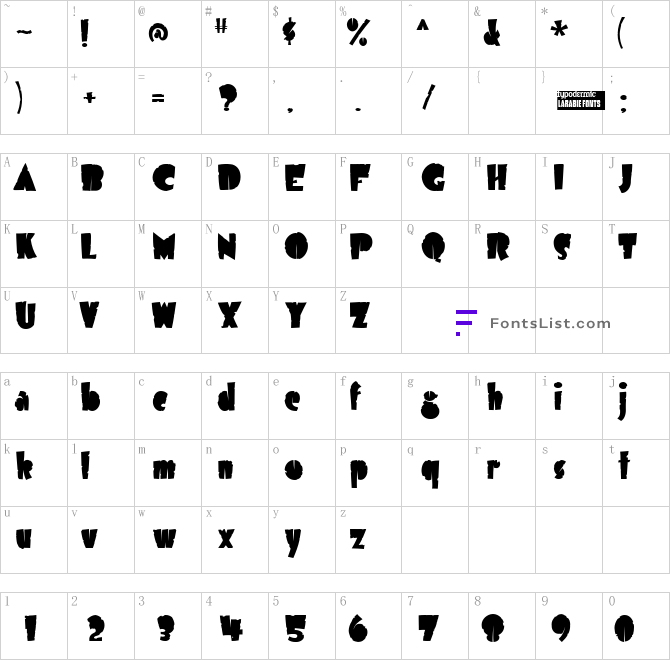
- Font Name:Airmole Antique
Airmole-Antique-copy-3-.ttf is a very beautiful artistic font, Airmole-Antique-copy-3-.ttf is widely used in the design and printing of various books and pictures,Airmole-Antique-copy-3-.ttf has a strong visual impact,Airmole-Antique-copy-3-.ttf is a commonly used font in newspapers, magazines and books, and is used in posters, e-commerce Poster design, store design, logo design, font design and other fields.Airmole-Antique-copy-3-.